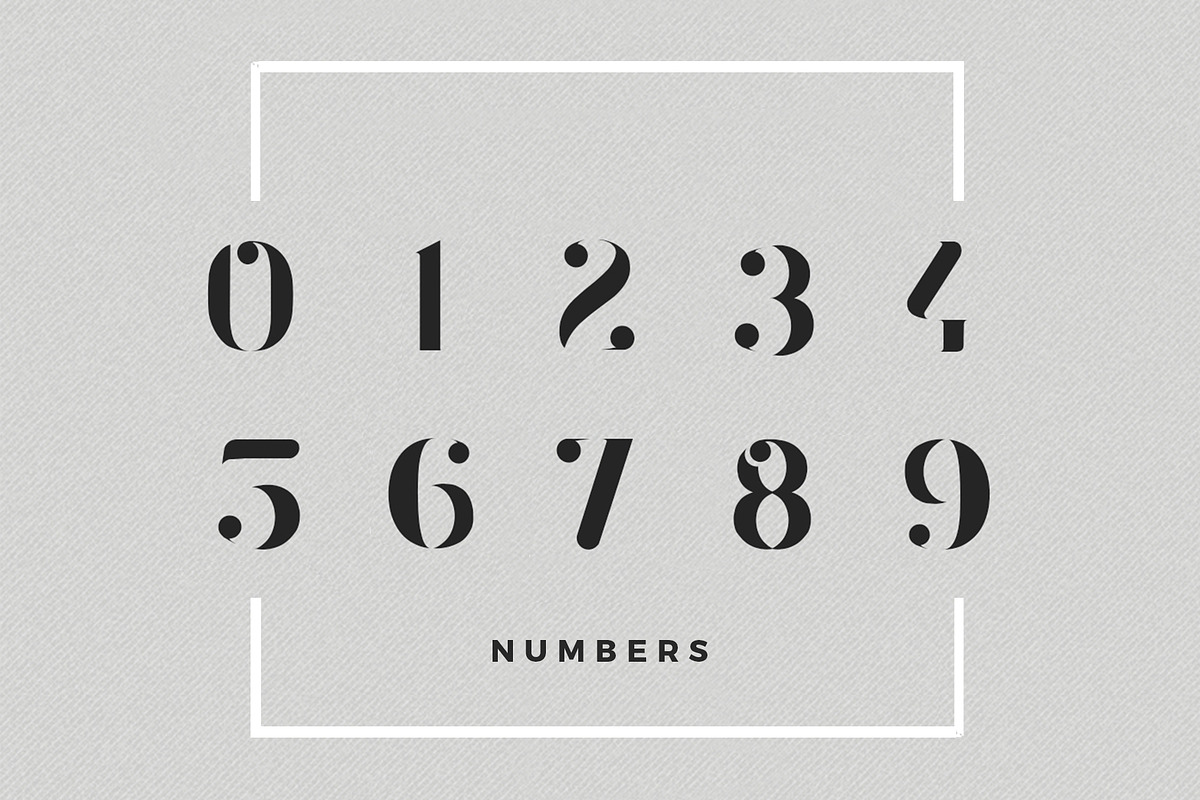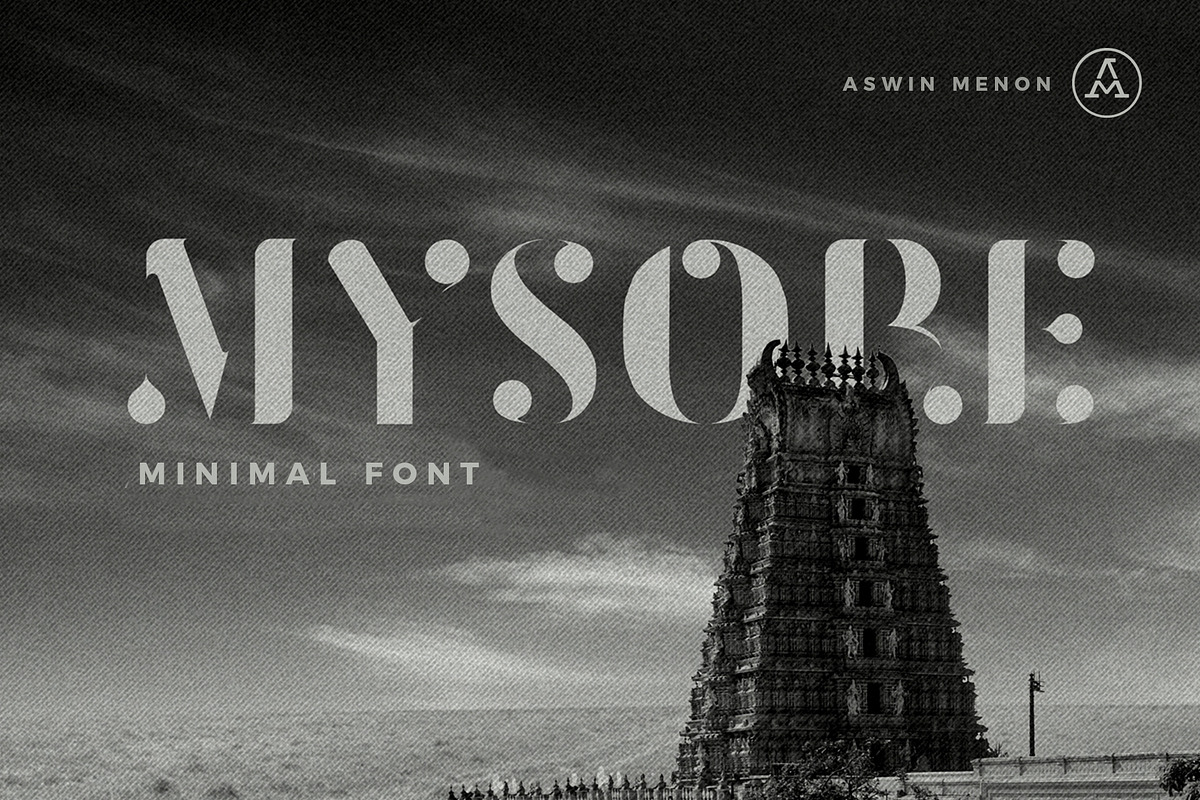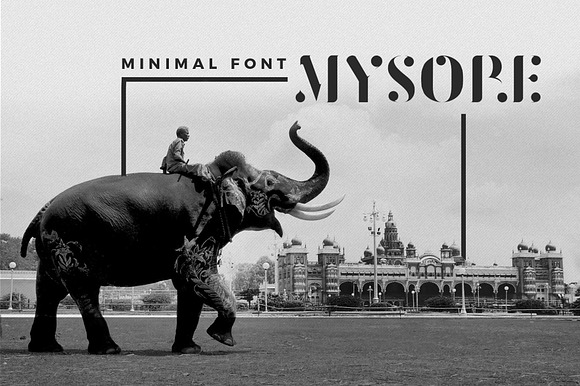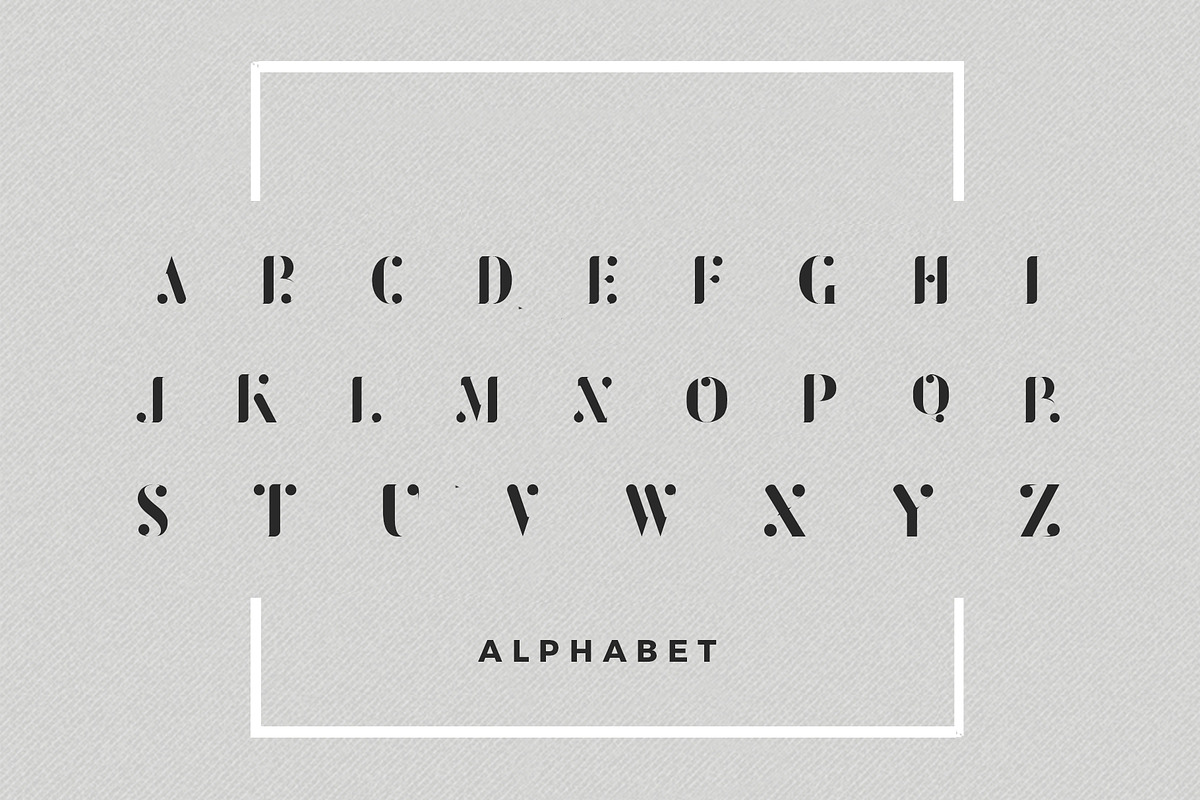
Mysore Font
Mysore An all - caps font inspired by the vivid visual art and culture of the magnificent South Indian city - Mysore. The design was conceived analysing elements of Mysore art.
Perfect for branding, packaging, headlines, posters, presentations, short texts.
Mysore Font by Aswin Menon fits naturally into Branding, posters, packaging, typography.